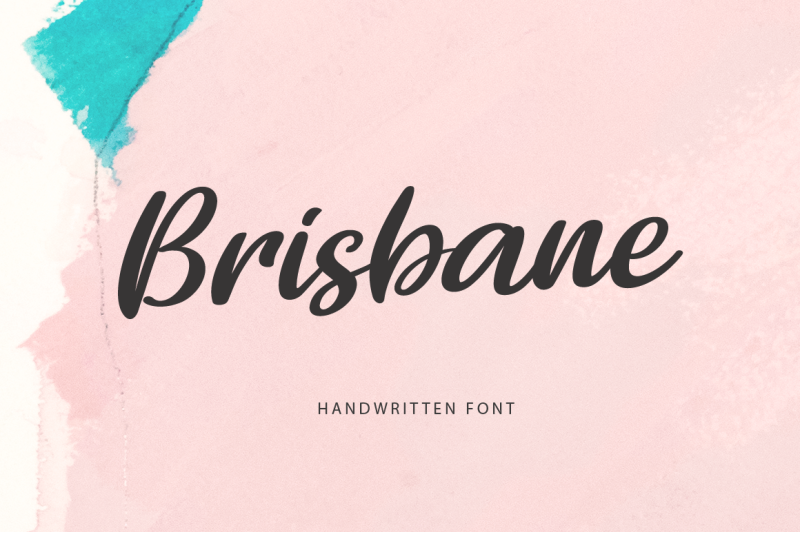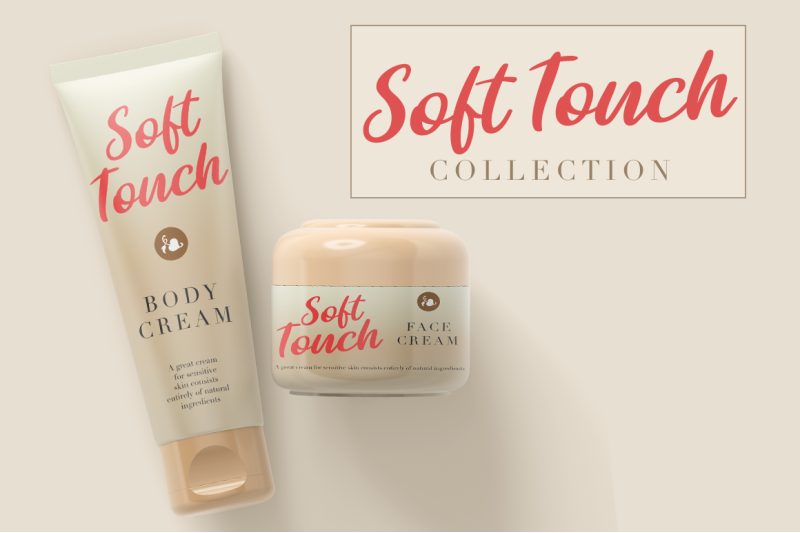
Freebie Wednesday: Brisbane Font.
Brisbane Handwritten Font is ideal for branding and decorations! Beautify your projects with this lovely font, comes in OTF, TTF, and web fonts!